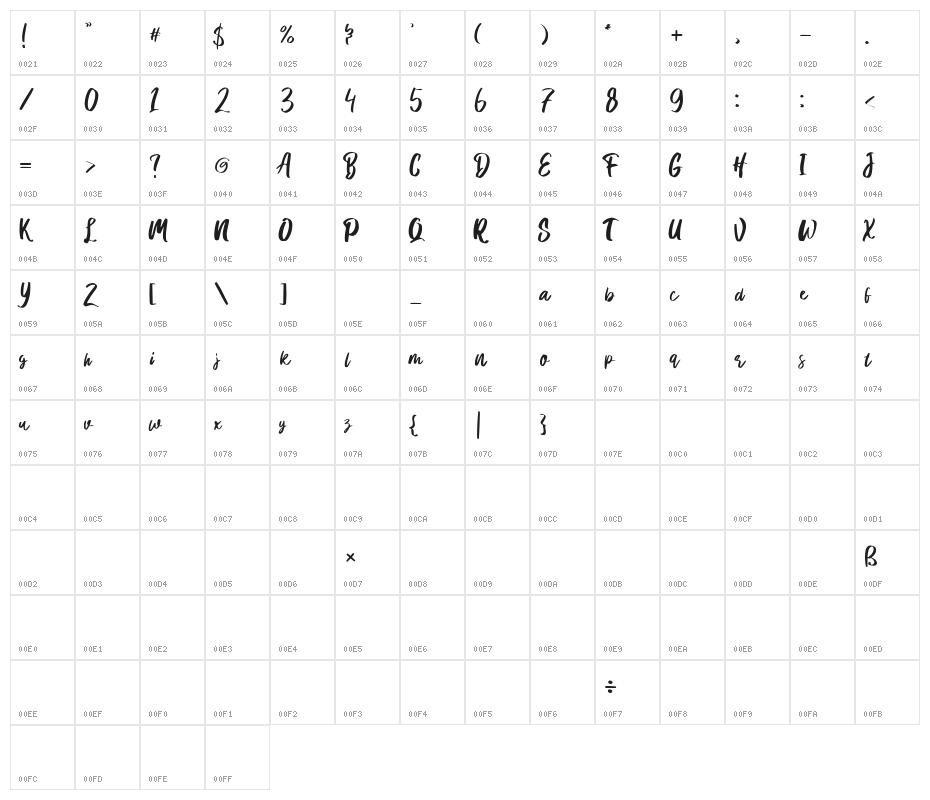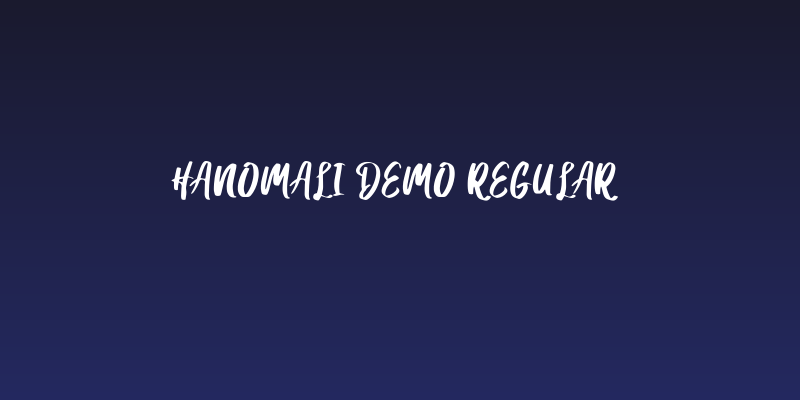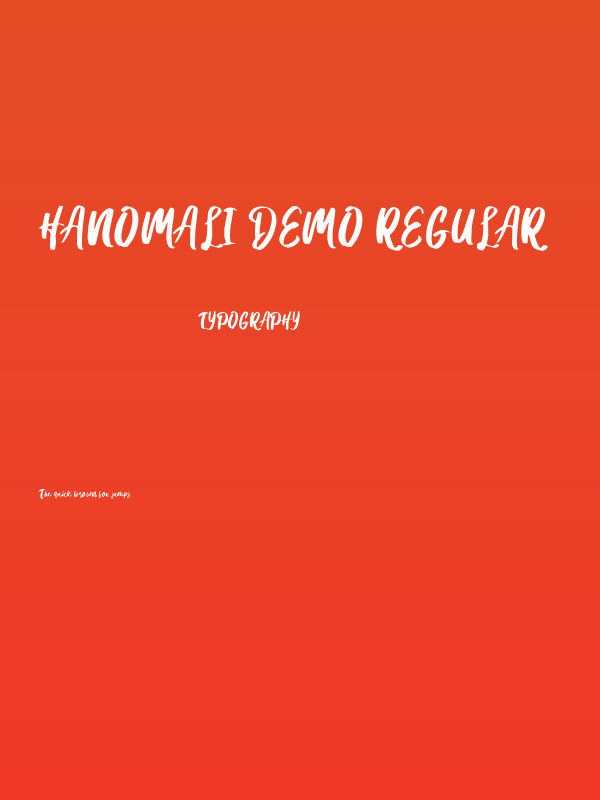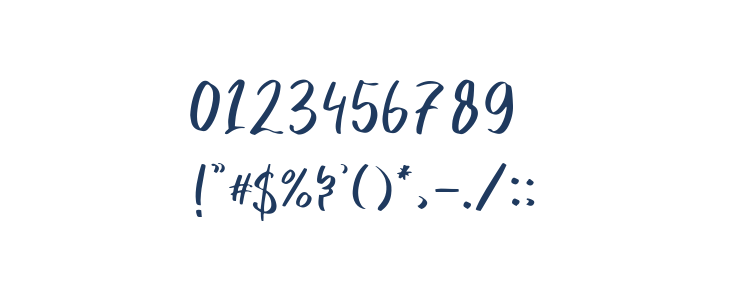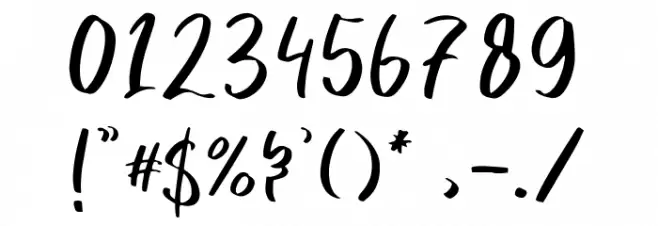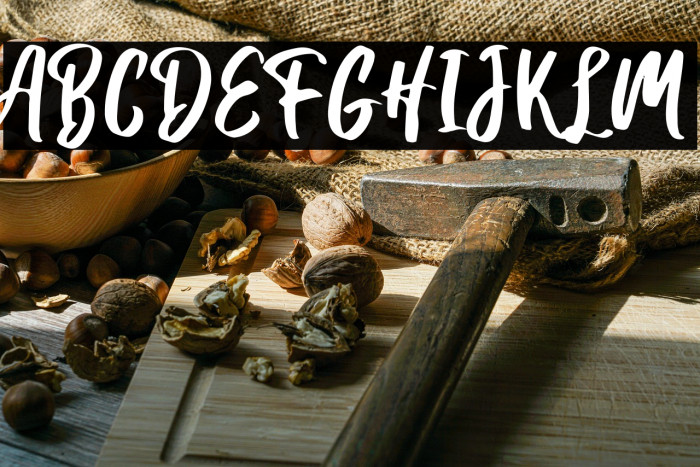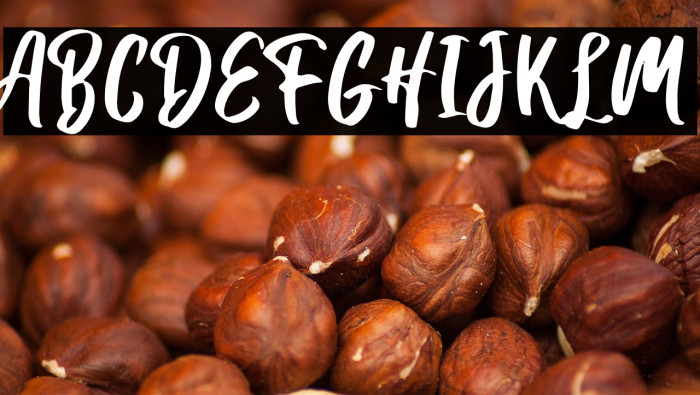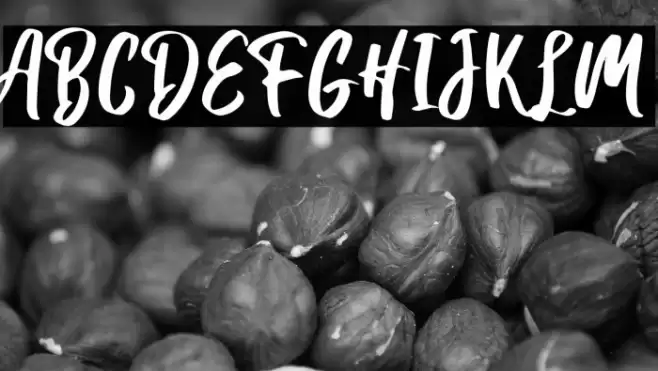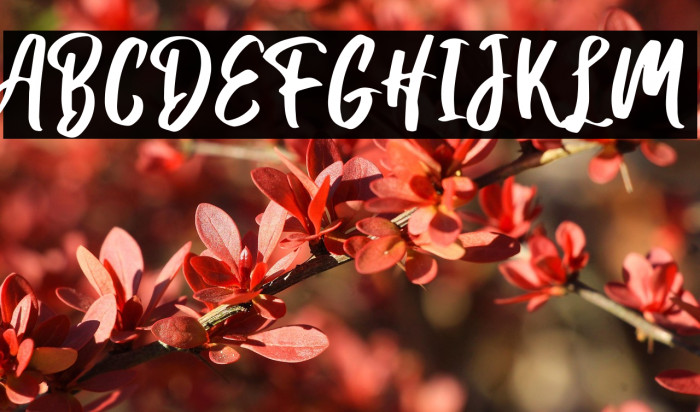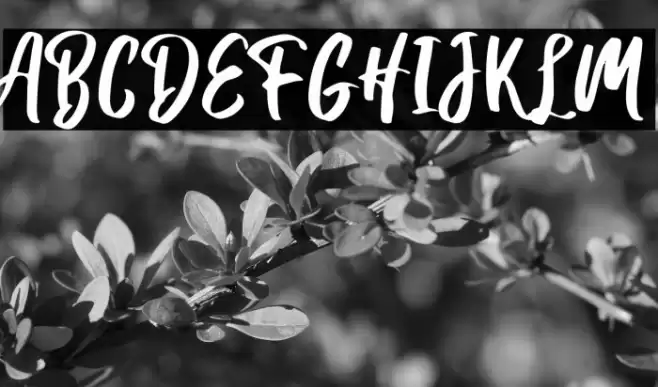
Hanomali Demo Regular Font
Hanomali Demo Regular Description
This font exhibits a bold and expressive script style, characterized by its fluid and dynamic strokes. The uppercase letters are particularly striking, with a playful yet elegant flair that suggests movement and energy. The lowercase letters maintain this fluidity, offering a harmonious balance between readability and artistic expression. The numerals are consistent with the overall style, featuring curved lines and a slightly whimsical touch. Special characters are well-integrated, maintaining the font's cohesive aesthetic. This font's unique style makes it suitable for creative projects that require a personal and artistic touch.
| Use Case | Logos, Headlines, Artistic projects |
| Proposed Projects | Ideal for branding, invitations, greeting cards, and artistic posters. |